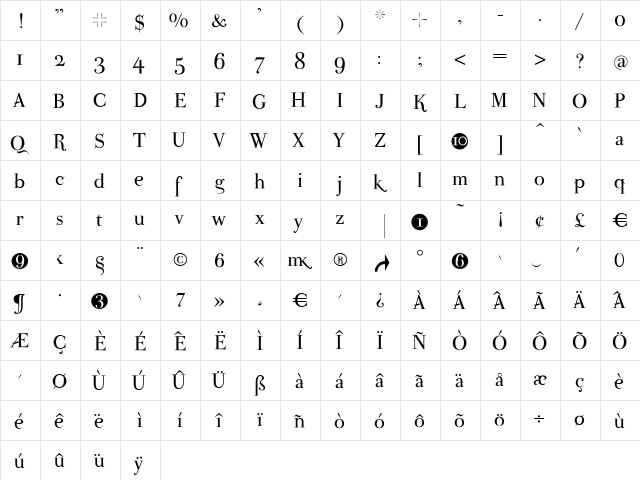
ParmaPetit Regular
Design Context for ParmaPetit Typeface
ParmaPetit takes a measured approach to typography — its balanced proportions and neutral character make it a reliable workhorse for both digital and print work.